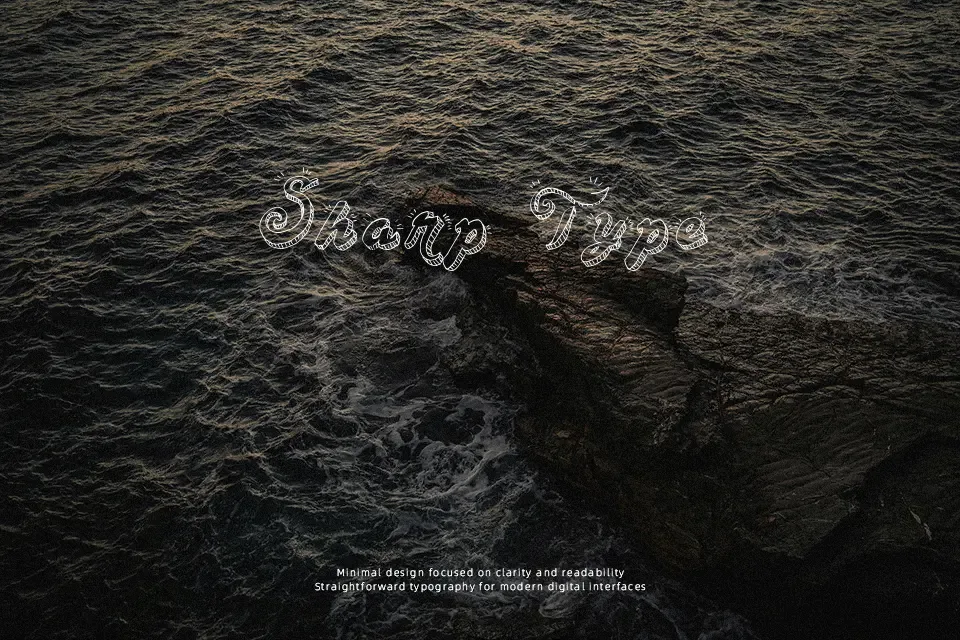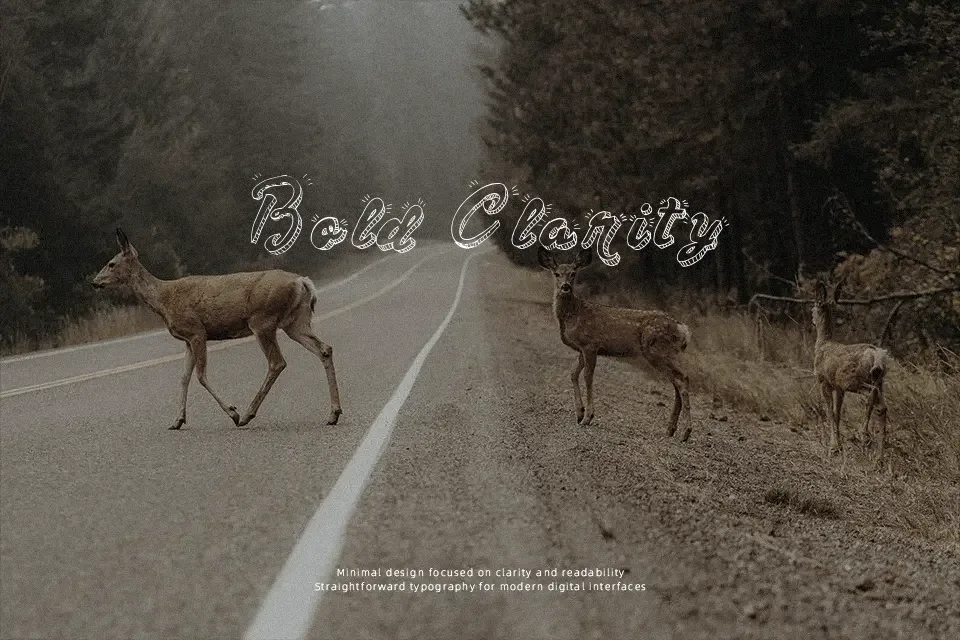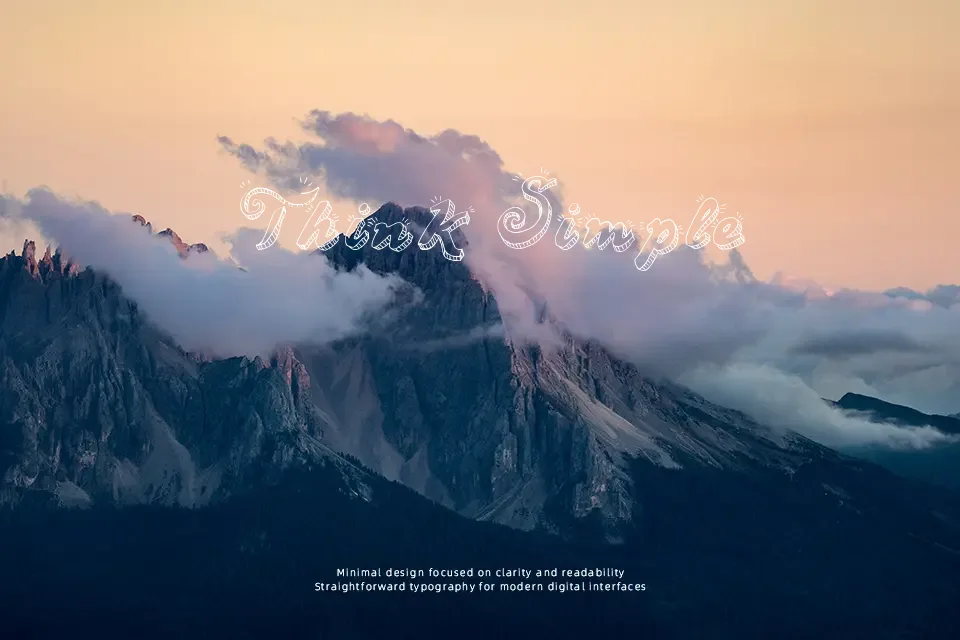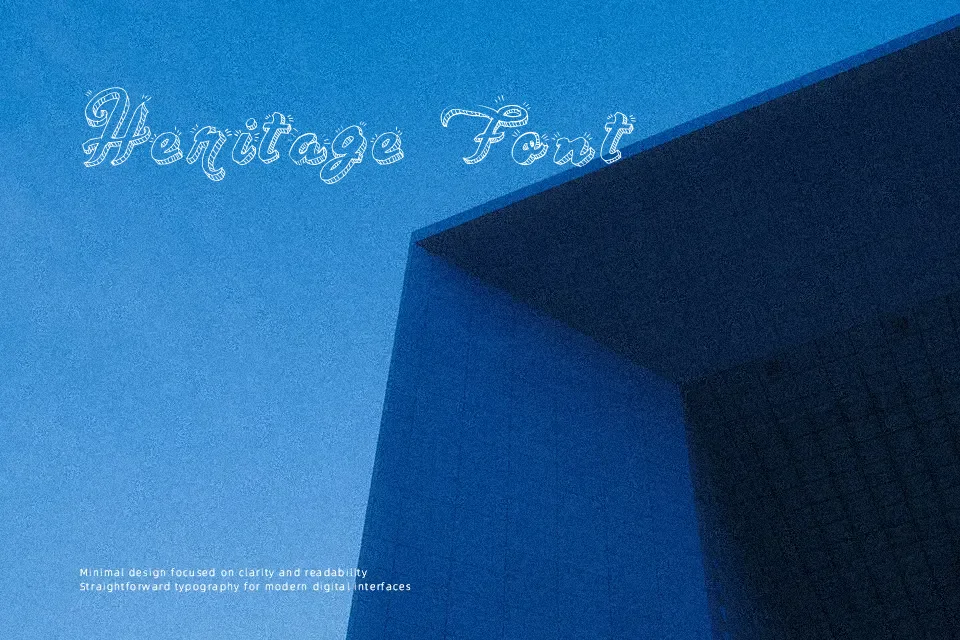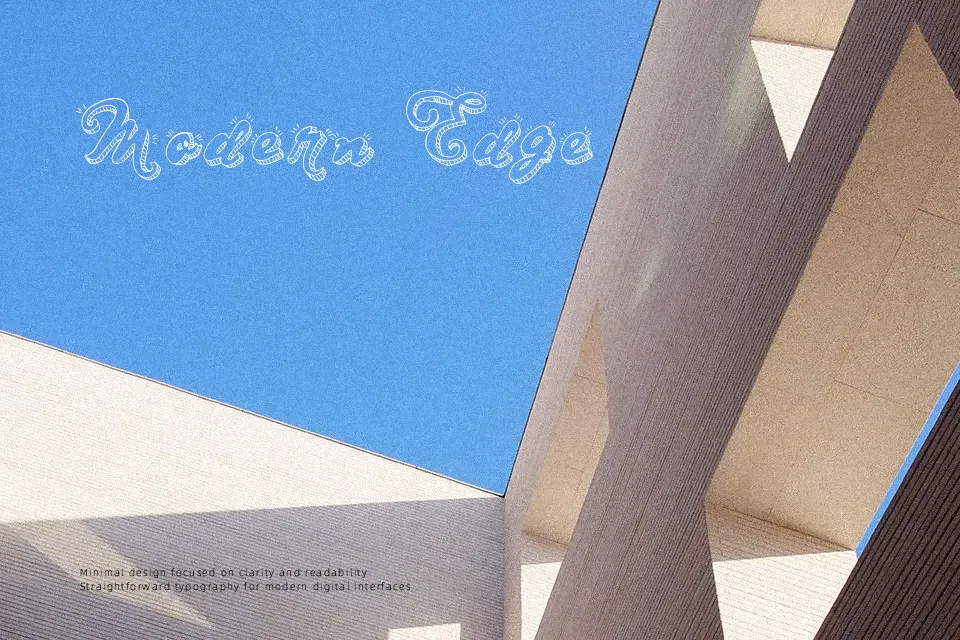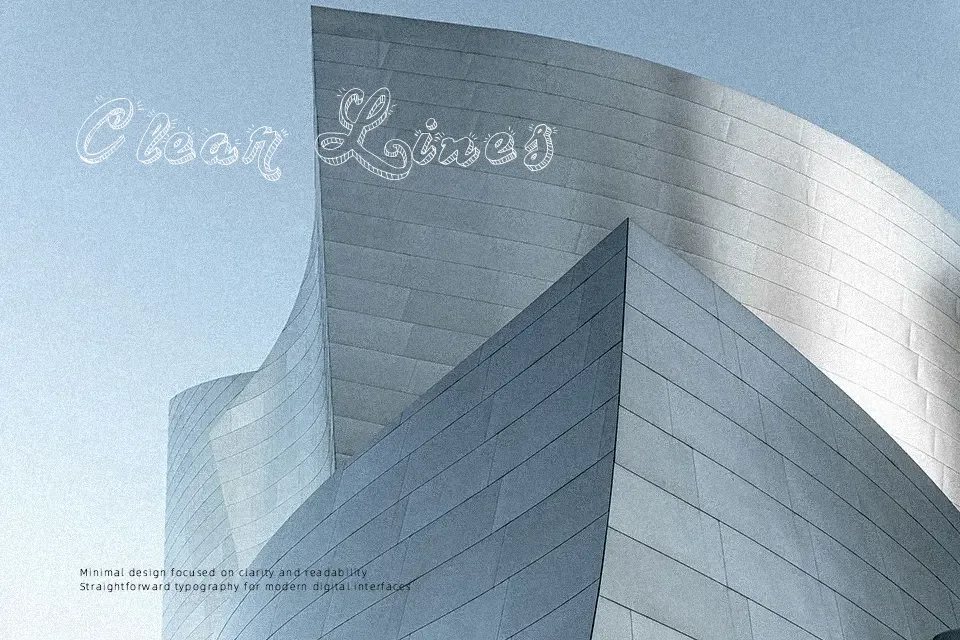
Sketch Handwriting Font
Designed by Galdino Otten Fonts
Sketch Handwriting Font introduces a textured, hand-sketched structure built from layered line strokes and irregular contours. The letterforms display relaxed proportions with subtle baseline variations, capturing the spontaneous energy of freehand graphite drafting. Generous spacing between characters helps maintain structural clarity across medium and large display sizes, preventing the intricate internal shading lines from blending together. However, the complex hatching details become cluttered and difficult to distinguish at smaller point sizes, making the typeface impractical for continuous body text or compact interface labels. When deployed across prominent editorial titles, craft packaging, or promotional graphics, the design provides an engaging, handcrafted visual tone.
Best For: illustrated book titles,craft packaging labels,creative event posters,social media graphics
Not Ideal For: long body paragraphs,mobile application ui,small legal disclaimers,technical documentation
Perfect for headline, packaging, and poster, with a artistic and decorative style.